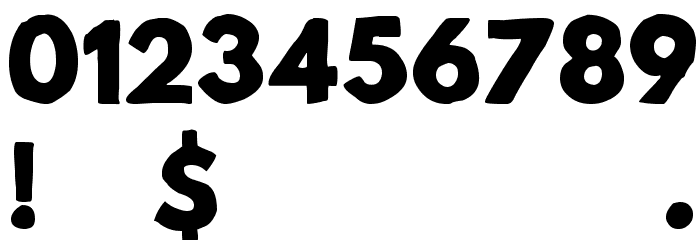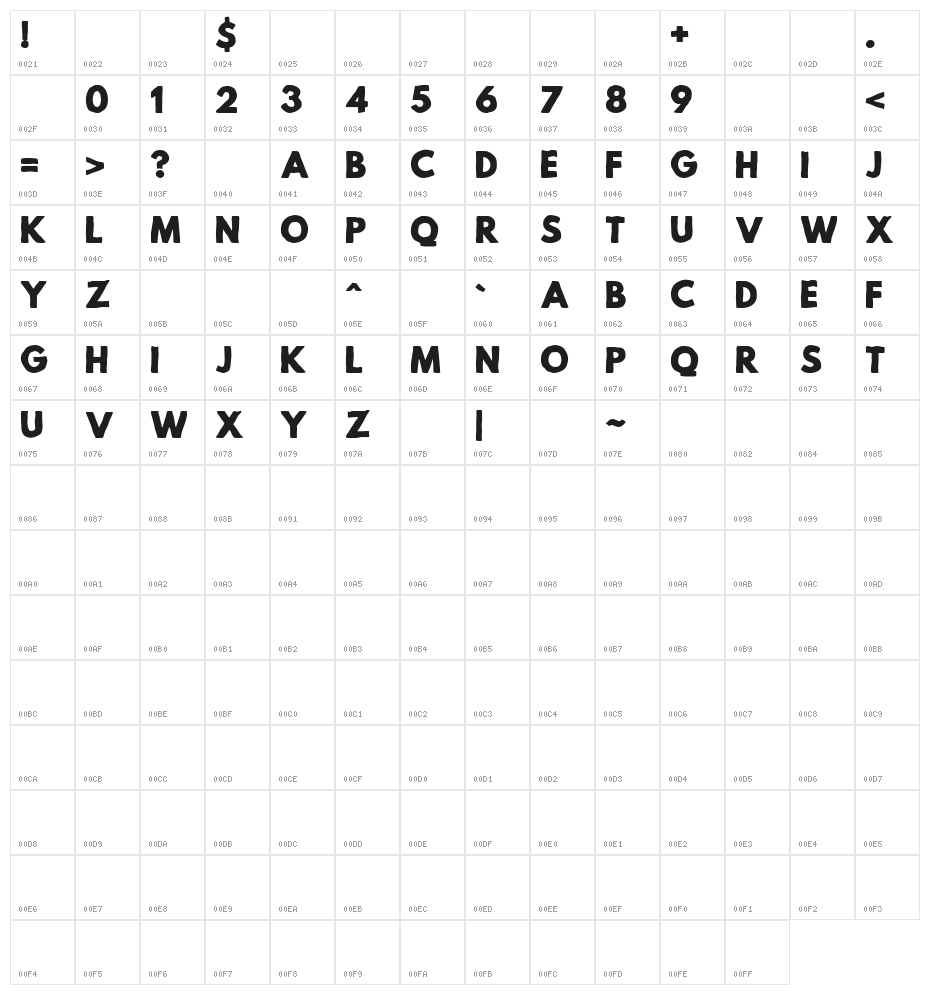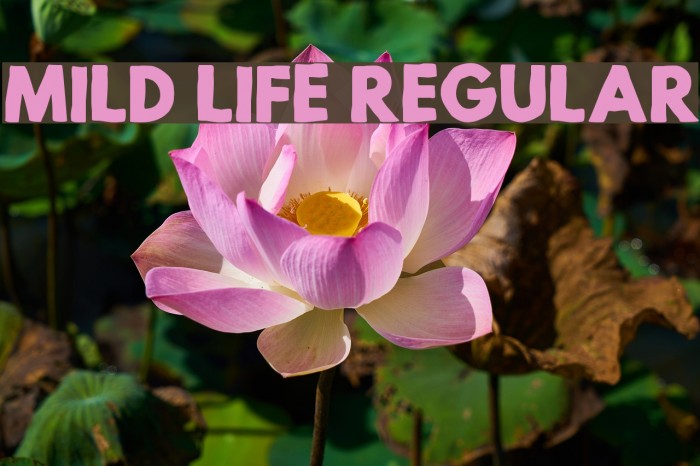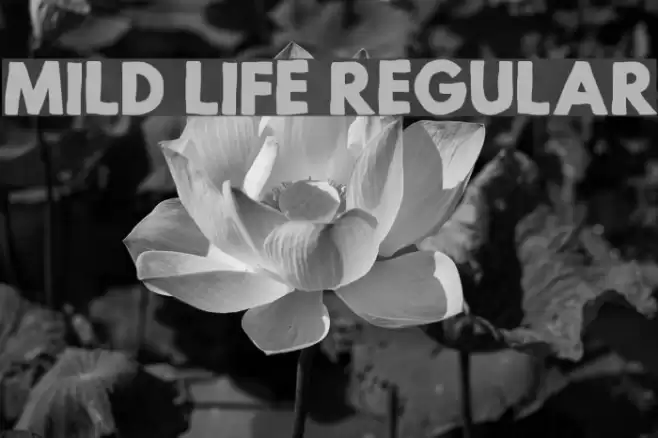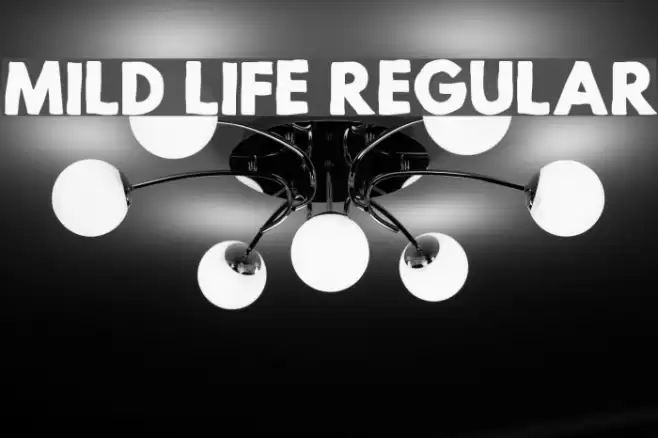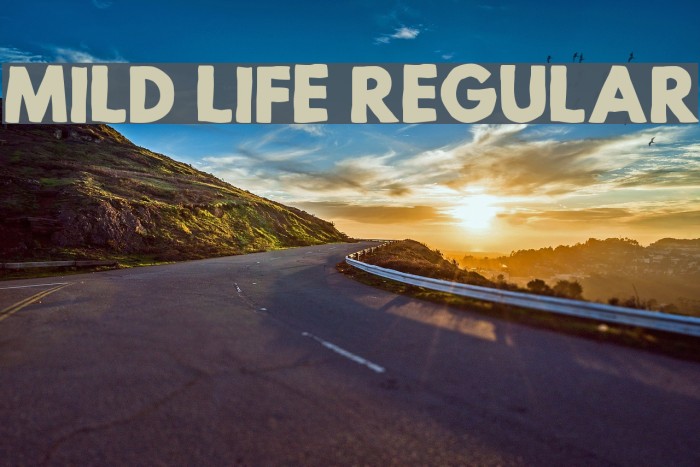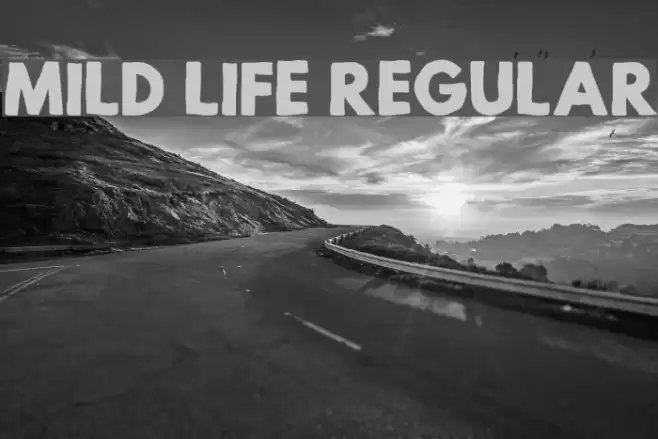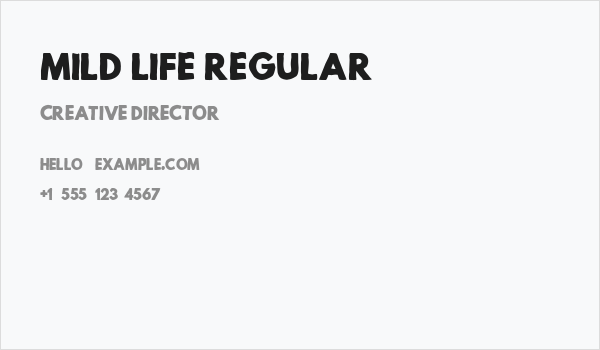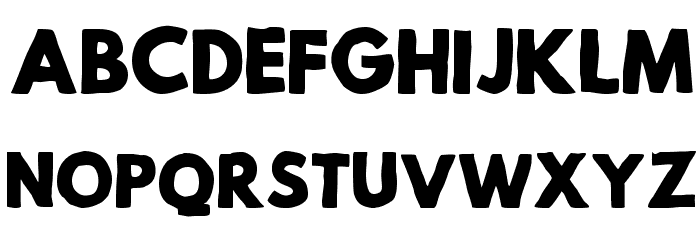
Mild Life Regular Font
Mild Life Regular Description
This font features bold, rounded characters with a playful and slightly irregular style, giving it a hand-drawn appearance. The uppercase letters are prominent and convey a sense of fun and creativity, while the numbers and special characters maintain the same whimsical aesthetic. The strokes are thick and consistent, providing a strong visual impact. The overall design is casual and approachable, making it suitable for projects that require a friendly and informal tone.
| Overall Style | Playful, Casual |
| Proposed Projects | Ideal for children's books, playful branding, posters, and casual invitations. |